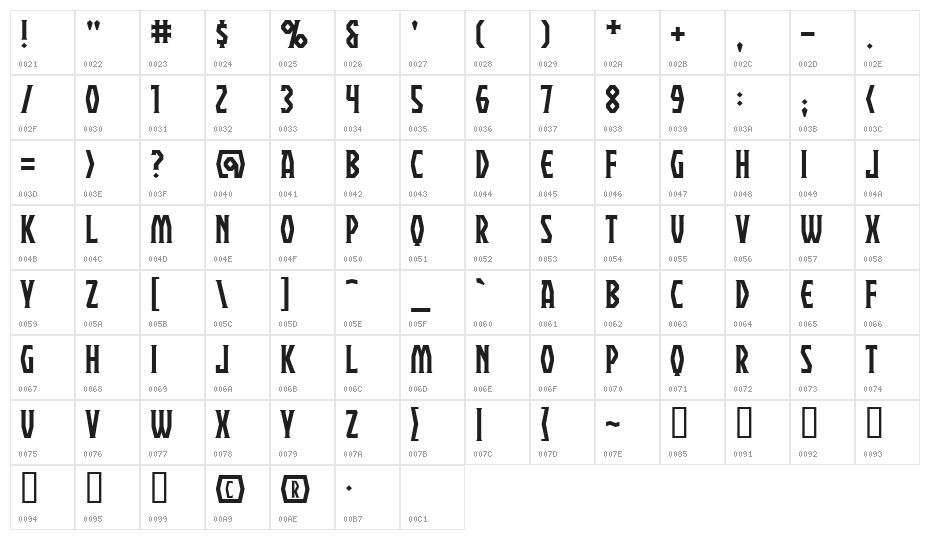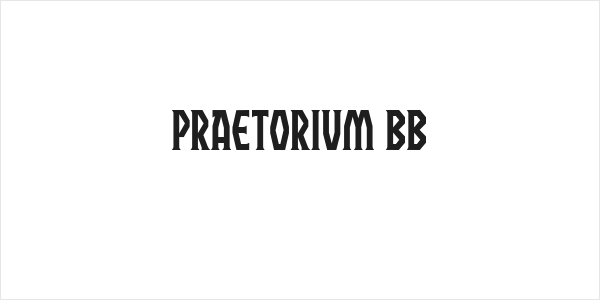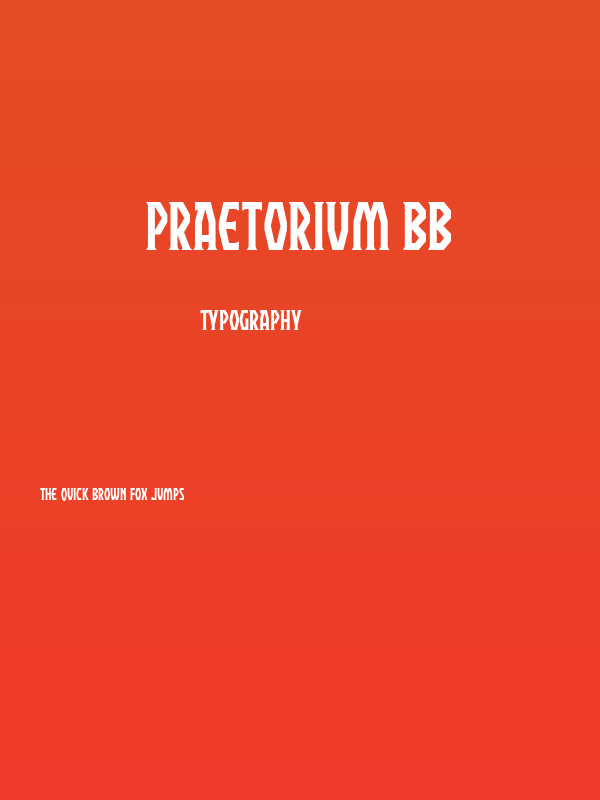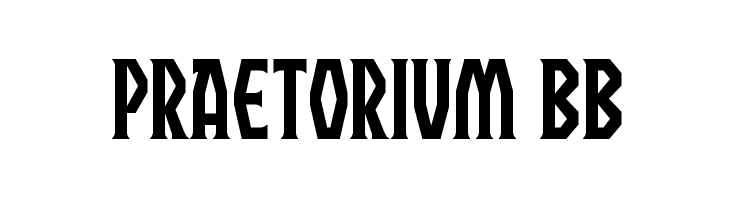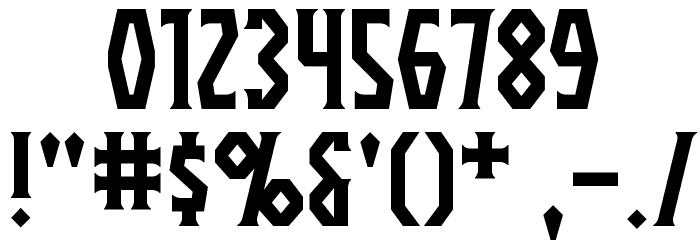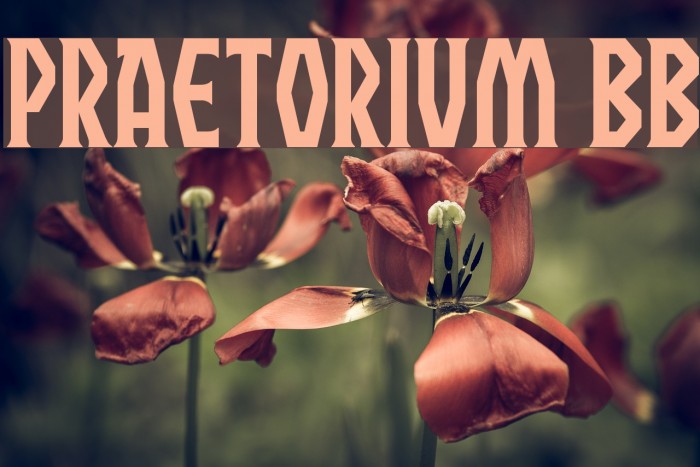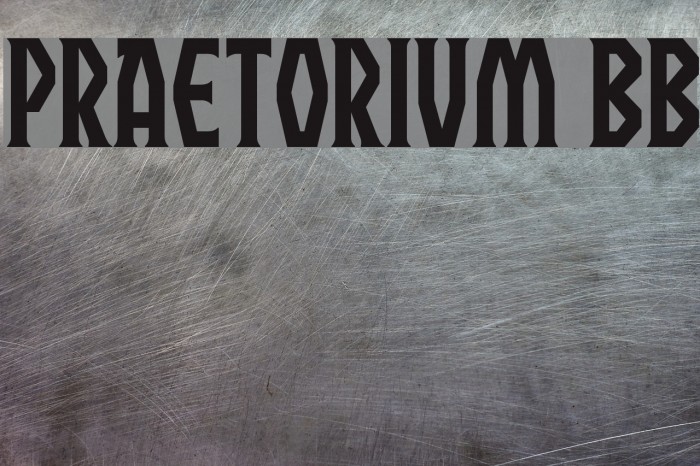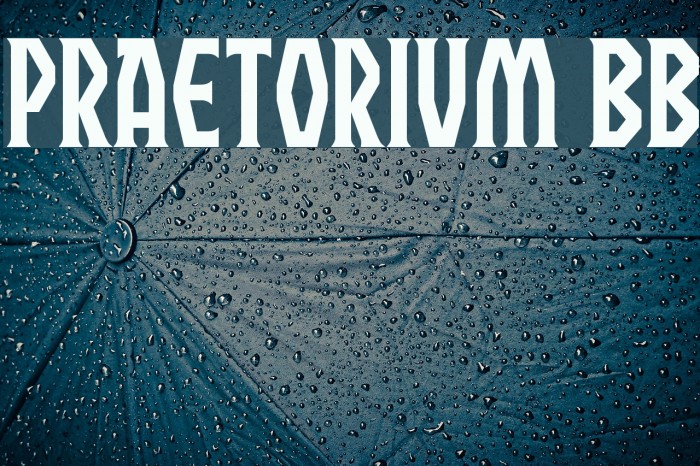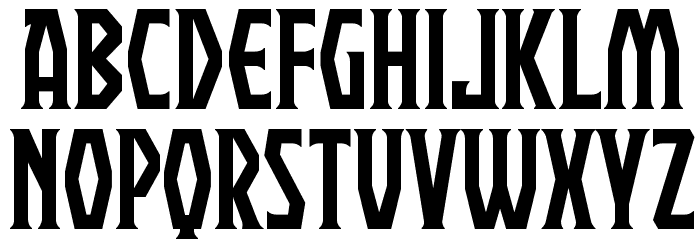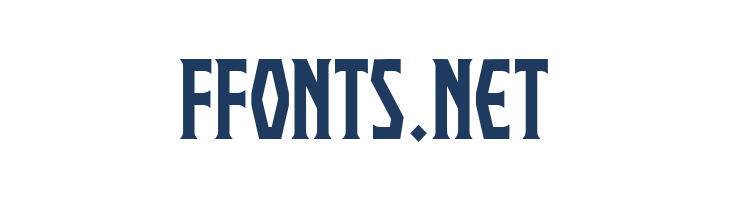
Praetorium BB Font
Praetorium BB Description
This font features a bold and striking design with sharp, angular lines and a strong presence. The uppercase letters are tall and narrow, with a distinct geometric style that gives them a commanding appearance. The numerals and special characters maintain this bold aesthetic, ensuring consistency throughout the typeface. The overall look is reminiscent of ancient or medieval scripts, yet it retains a modern edge that makes it versatile for various design applications. Its unique style makes it ideal for projects that require a dramatic and impactful visual element.
| Proposed Projects | Ideal for posters, logos, book covers, and any design needing a dramatic and impactful typeface. |